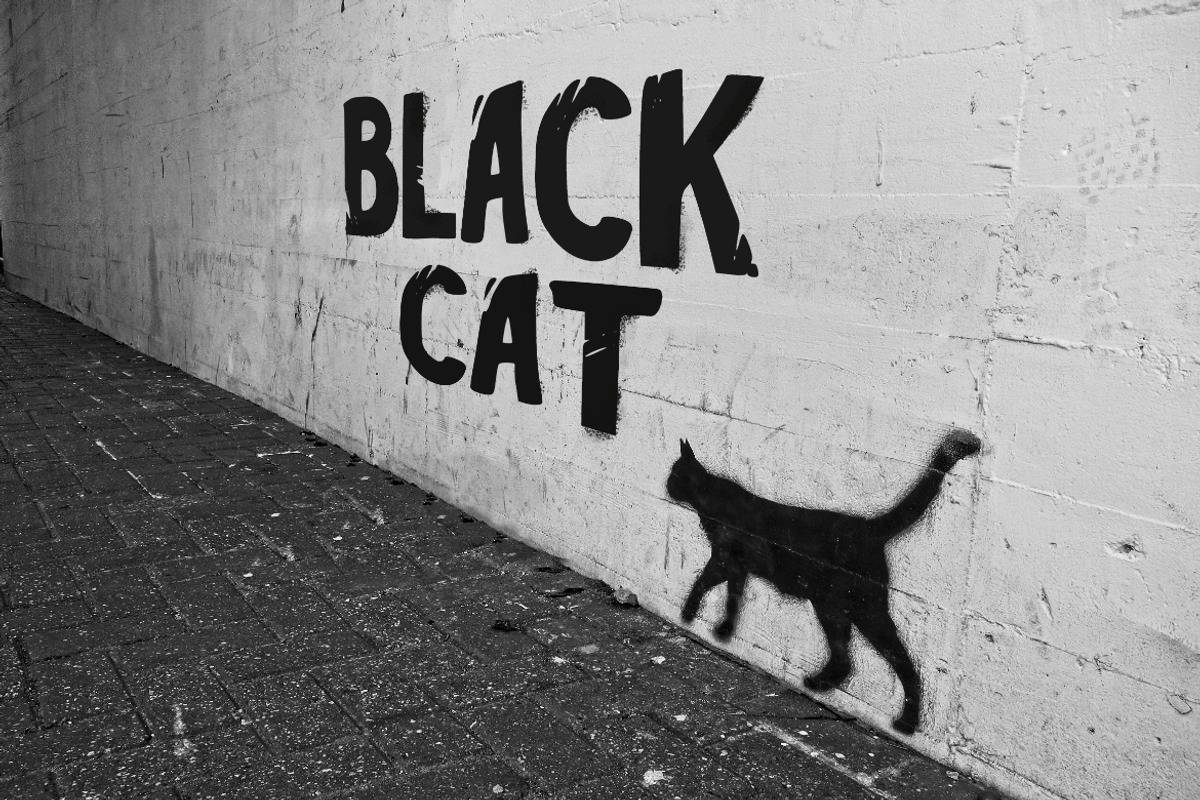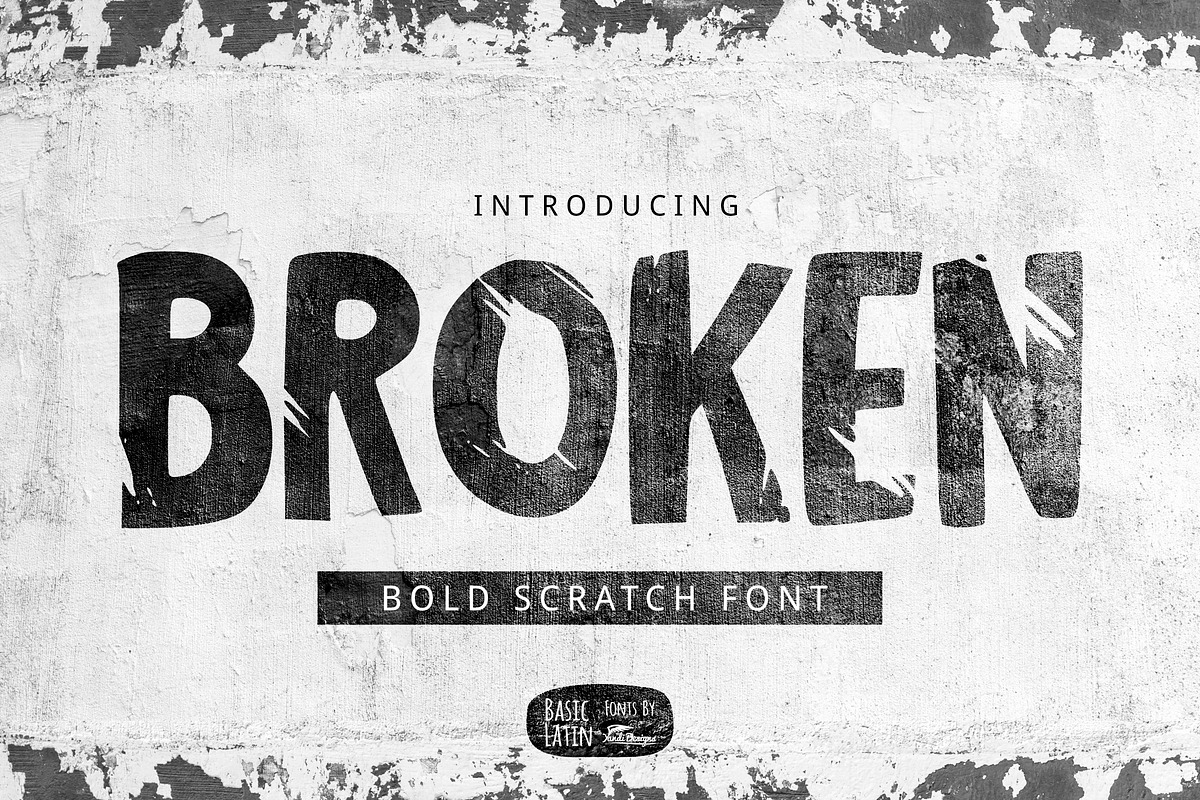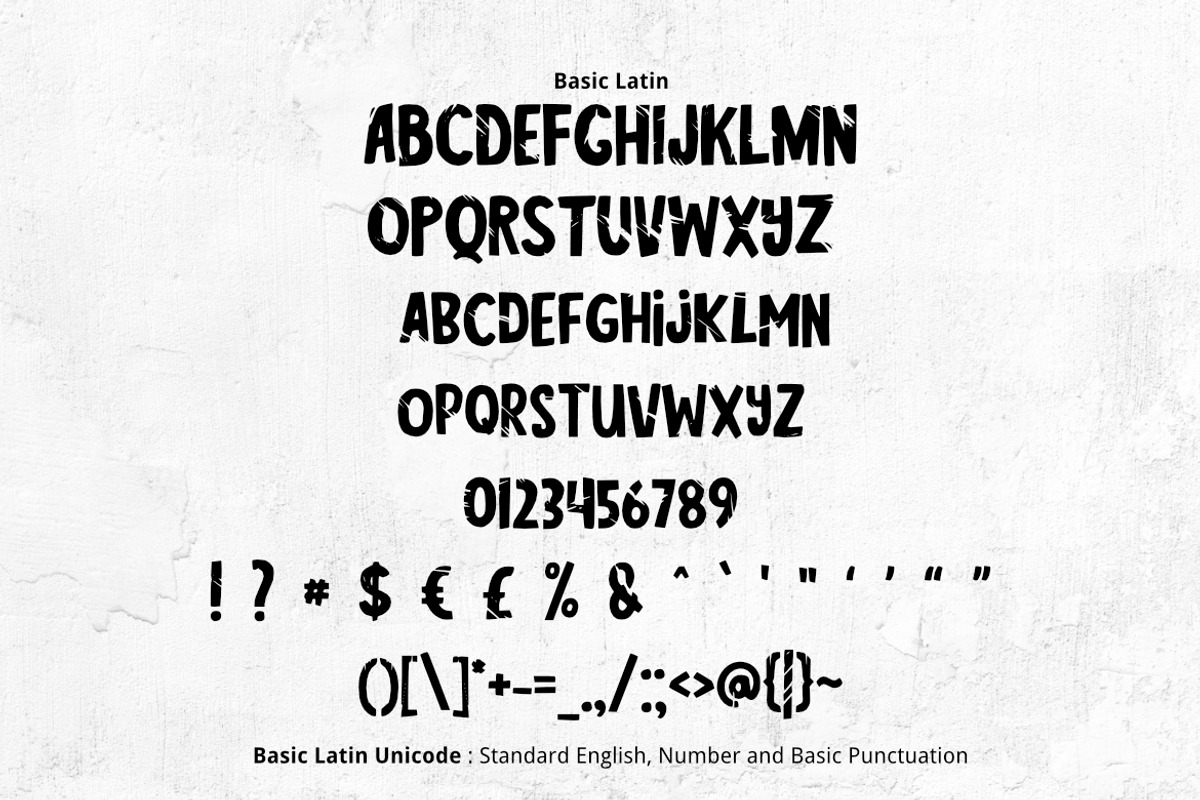
Broken Font
Broken font is simple uppercase, bold scratch multipurpose handwritten font , suitable for many project children book, quotes, logo , heading , title etc.
Broken Font by YandiDesigns fits naturally into Branding, posters, packaging, typography.